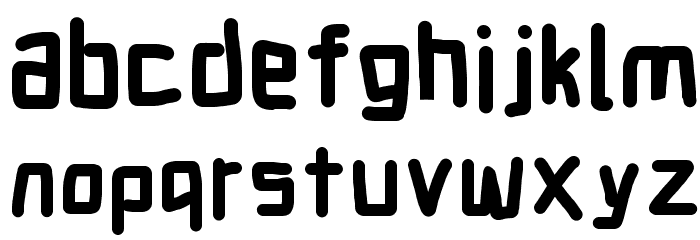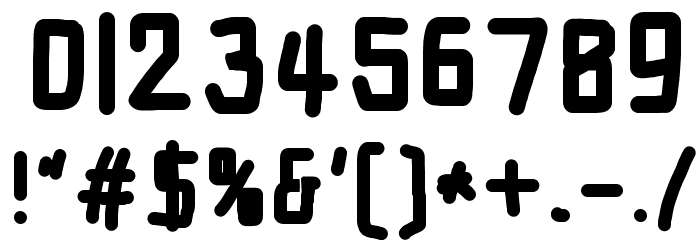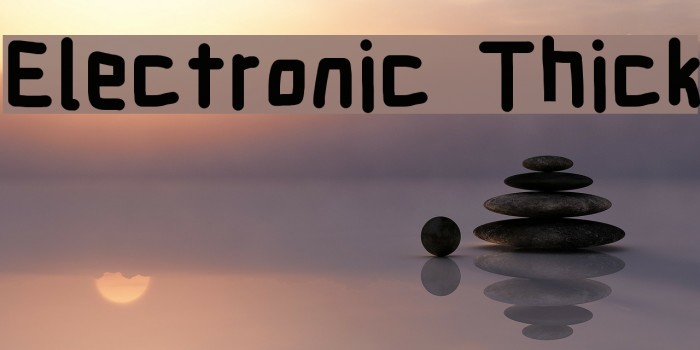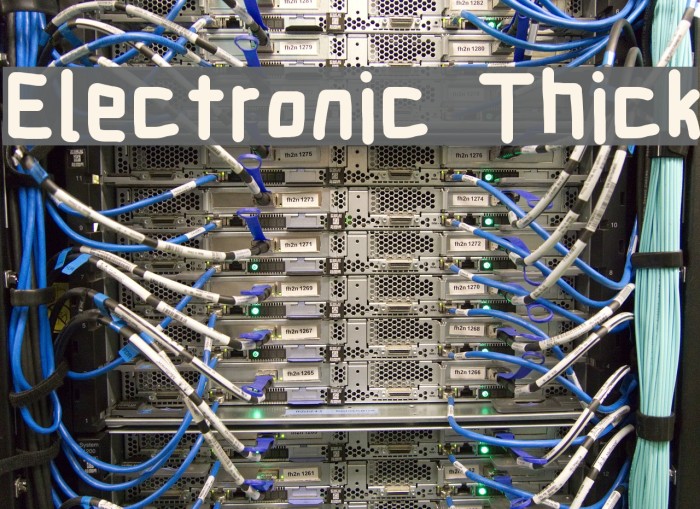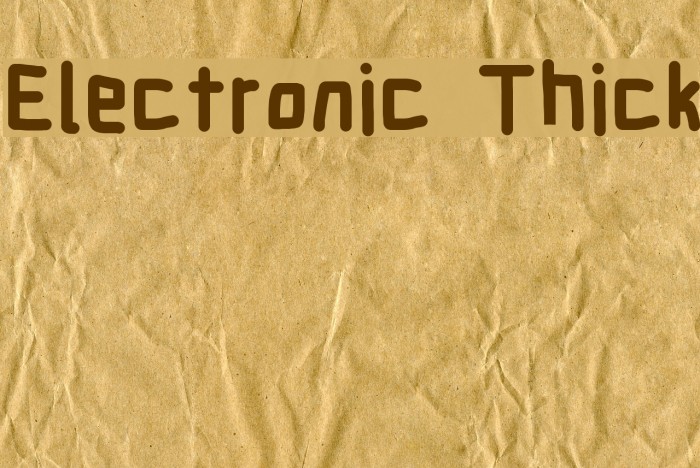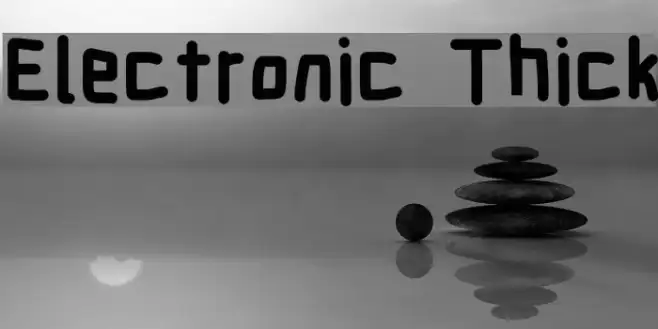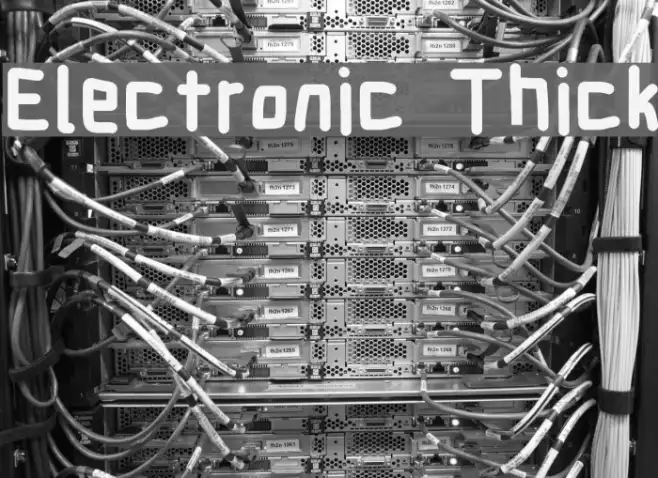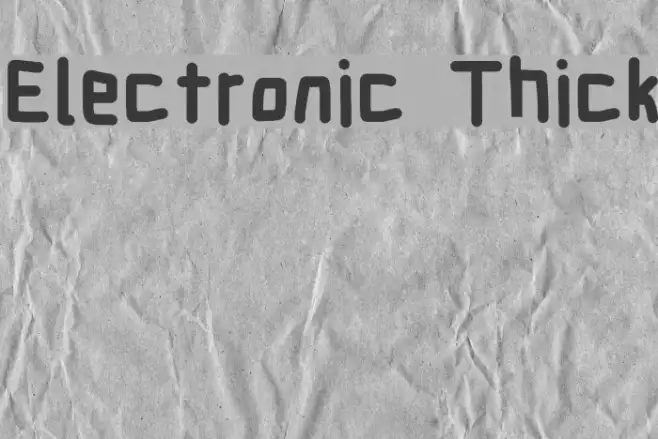
Electronic Thick Font
This font features a bold, rounded style with a playful and modern aesthetic. The characters are thick and uniform, giving a sense of stability and strength. The uppercase and lowercase letters maintain a consistent weight, contributing to a cohesive look. The numbers and special characters follow the same design principles, ensuring versatility across different uses. The rounded edges soften the overall appearance, making it approachable and friendly. This font is ideal for projects that require a bold statement without being overly aggressive.
A bold, rounded font with a playful and modern aesthetic.
- Proposed Projects: Ideal for branding, headlines, posters, and digital media where a strong yet friendly presence is desired.